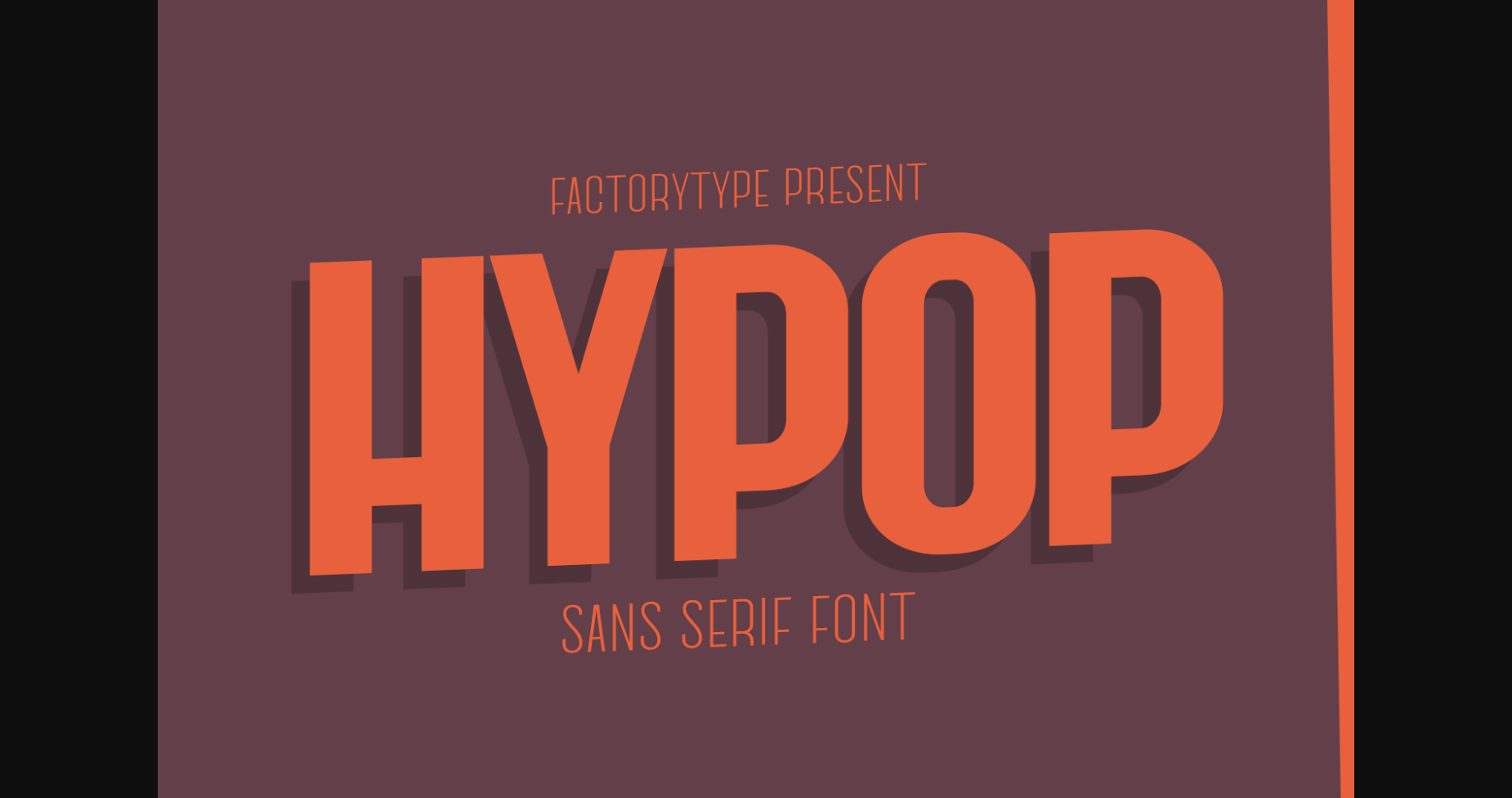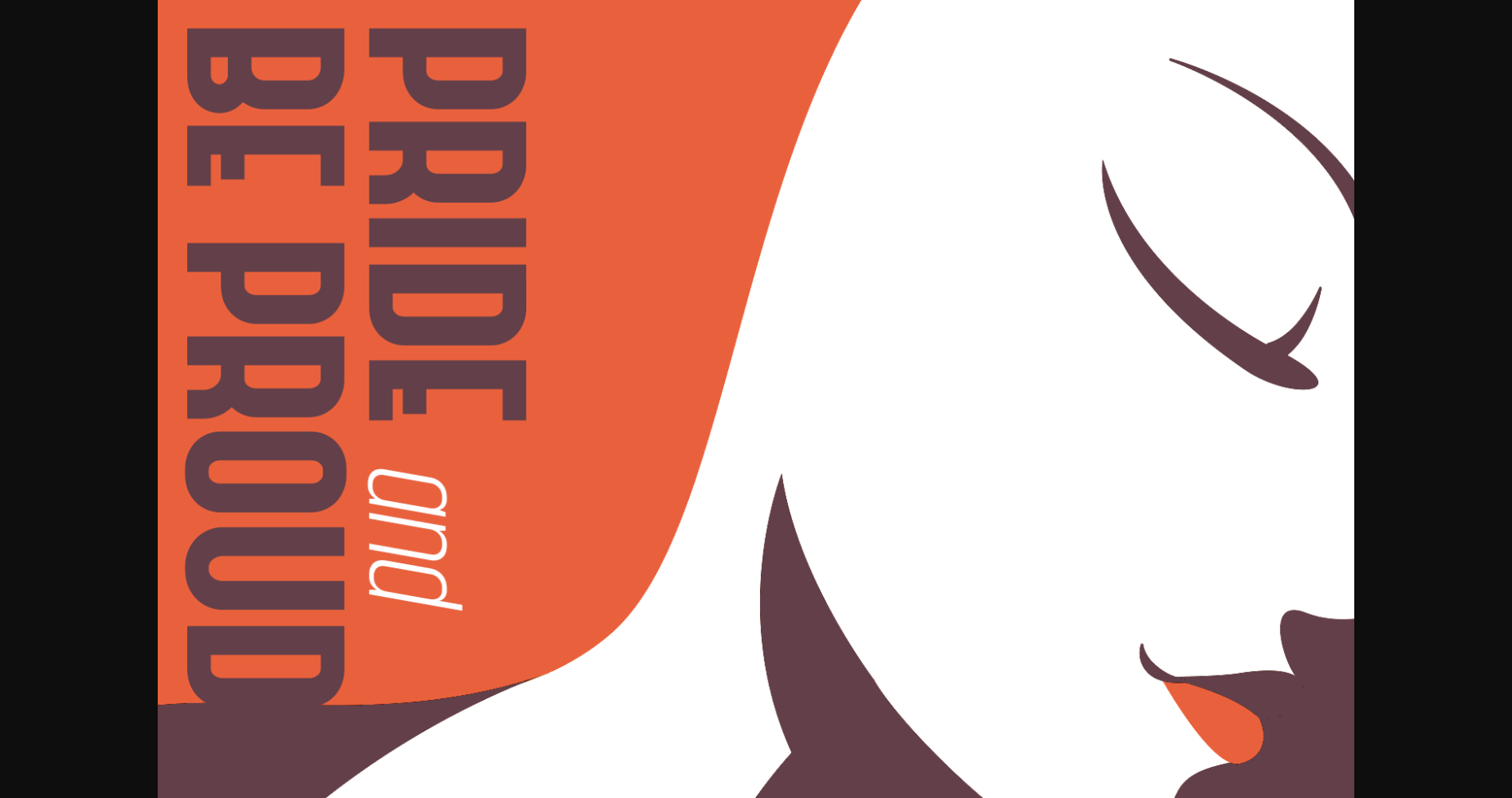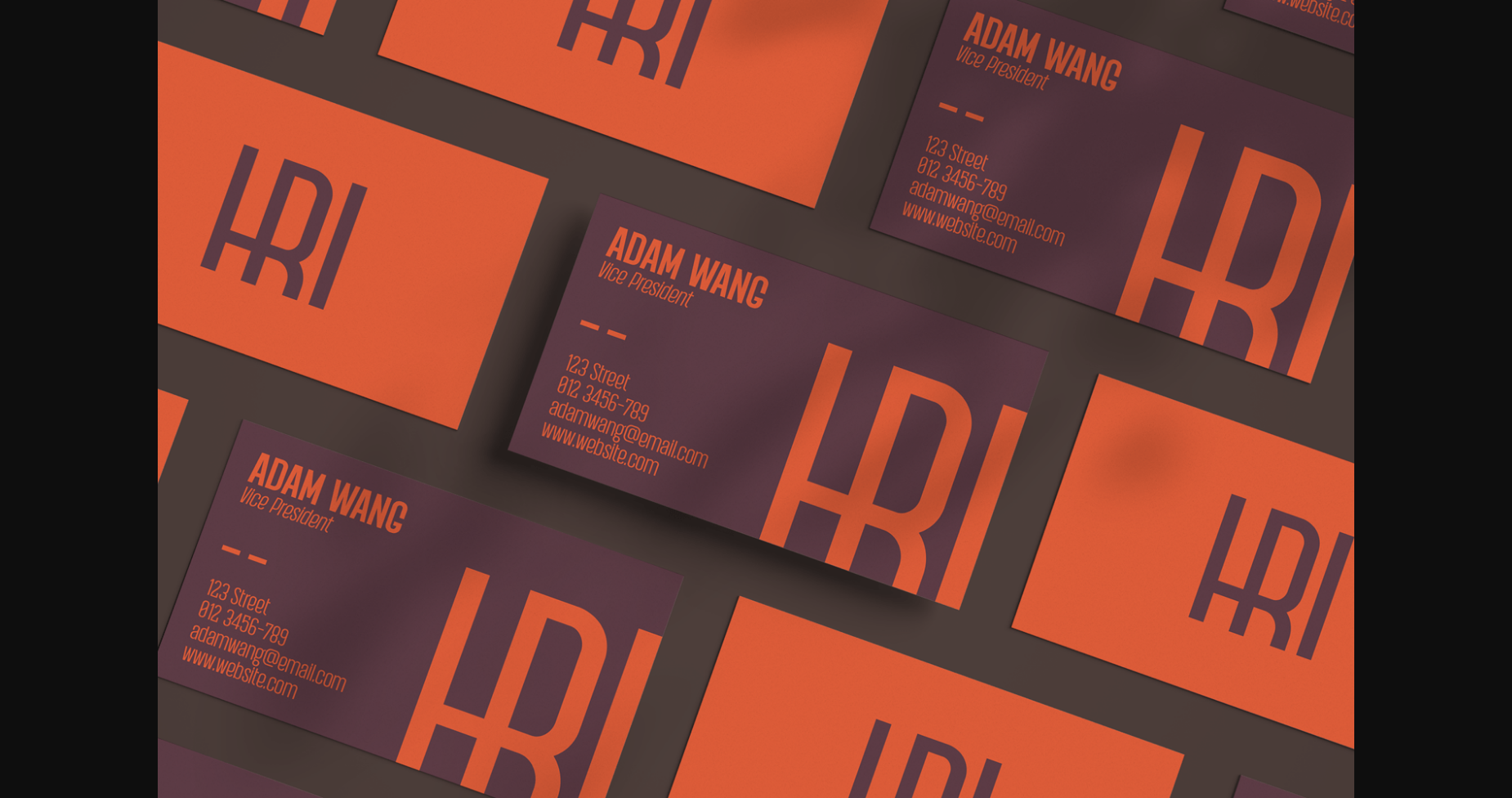
About Hypop Font
HYPOP is a bold and condensed sans serif font family with a nostalgic vibe. Combining retro and minimalist elements resulted in an elegant design. The different weights give you a lot of options when it comes to choosing the right typographic color for your project.